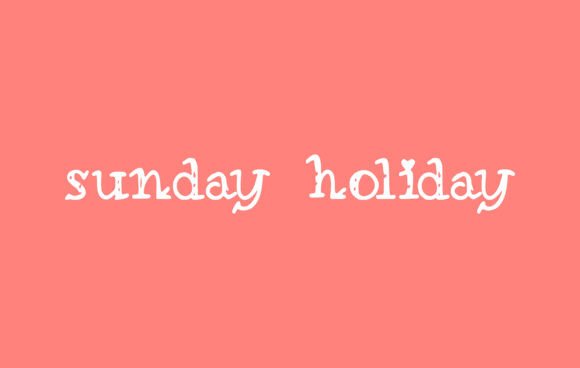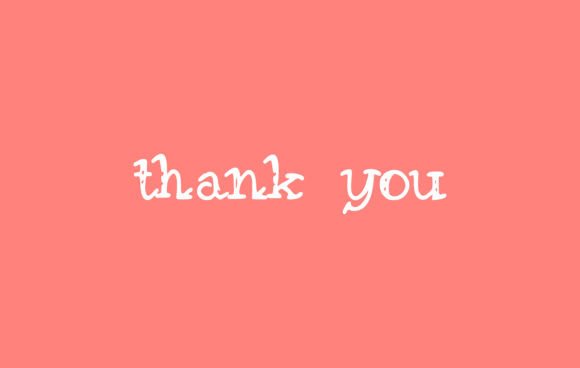
Introducing Adaline Font: The Perfect Handwritten Font for Your Creative Projects
Are you looking for a font that can add a touch of romance and elegance to your designs? Look no further than Adaline Font, an authentic handwritten font that is sure to become a true favorite among designers and crafters. In this article, we’ll take a closer look at the features and benefits of Adaline Font, and explore how it can be used to take your creative ideas to the highest level.
What is Adaline Font?
Adaline Font is a beautifully designed handwritten font that is perfect for a wide range of creative projects. With its romantic touch and elegant feel, this font is sure to capture the attention of your audience and leave a lasting impression. Whether you’re designing a magazine headline, social media post, or wedding invitation, Adaline Font is the perfect choice.
Key Features of Adaline Font
So, what makes Adaline Font so special? Here are just a few of its key features:
- Authentic Handwritten Style: Adaline Font is a genuine handwritten font, carefully crafted to mimic the look and feel of handwriting. This gives it a unique and personal touch that is sure to resonate with your audience.
- Romantic Touch: With its elegant feel and romantic flair, Adaline Font is perfect for designs that require a touch of sophistication and glamour.
- Legible and Versatile: Adaline Font is designed to be highly legible, making it perfect for use as both title and body text. Its versatility means it can be used for a wide range of creative projects, from magazine headlines to social media posts.
Uses for Adaline Font
So, what can you use Adaline Font for? The possibilities are endless! Here are just a few ideas to get you started:
- Magazine Headlines: Add a touch of elegance and sophistication to your magazine headlines with Adaline Font.
- Social Media Posts: Stand out on social media with Adaline Font, perfect for creating eye-catching posts and stories.
- Branding: Use Adaline Font to create a unique and memorable brand identity that will set you apart from the competition.
- Wedding Invitations: Add a touch of romance and whimsy to your wedding invitations with Adaline Font.
- Cards and Stationery: Create beautiful and elegant cards and stationery with Adaline Font, perfect for special occasions and everyday correspondence.
Why Choose Adaline Font?
So, why should you choose Adaline Font for your creative projects? Here are just a few reasons:
- Unique and Authentic: Adaline Font is a genuine handwritten font that will add a unique and personal touch to your designs.
- Elegant and Sophisticated: With its romantic touch and elegant feel, Adaline Font is perfect for designs that require a touch of sophistication and glamour.
- Highly Legible: Adaline Font is designed to be highly legible, making it perfect for use as both title and body text.
- Versatile: Adaline Font can be used for a wide range of creative projects, from magazine headlines to social media posts.
In conclusion, Adaline Font is a beautifully designed handwritten font that is perfect for designers and crafters looking to add a touch of romance and elegance to their creative projects. With its authentic handwritten style, romantic touch, and high legibility, Adaline Font is sure to become a true favorite among designers. Whether you’re designing a magazine headline, social media post, or wedding invitation, Adaline Font is the perfect choice. So why wait? Try Adaline Font today and take your creative ideas to the highest level!